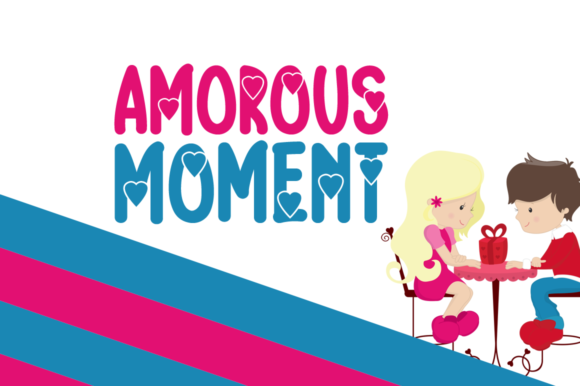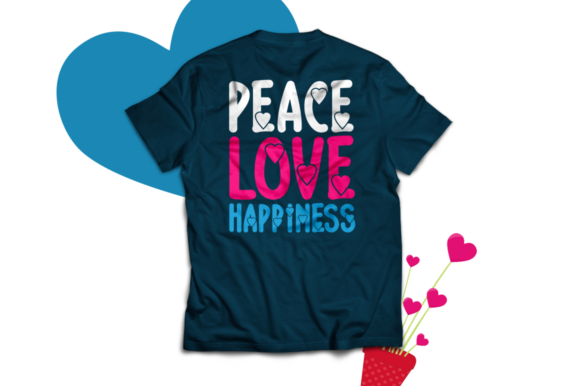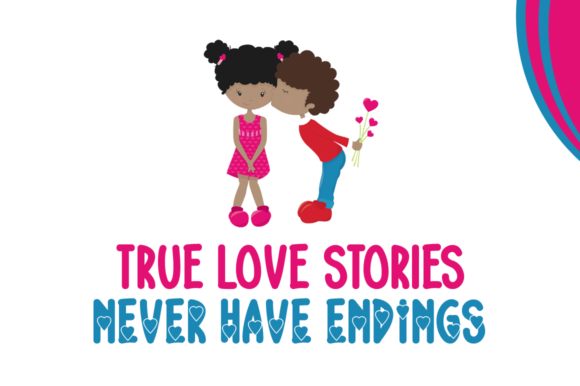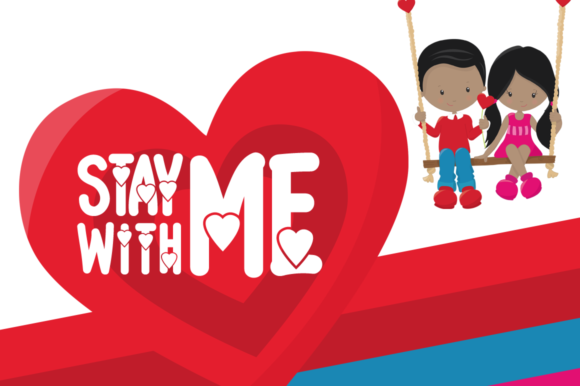
Introduction to Shy Darling Font
Shy Darling is a cool and romantic display font.
It is perfectly suited for stationery, logos, t-shirt, paper, print design, website header, photo frame, flyer, music cover, poster, image slider, and much more .